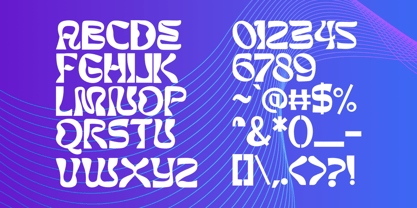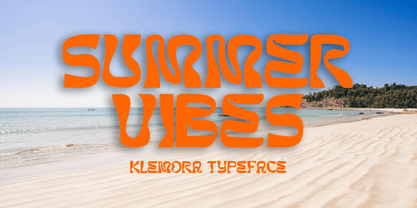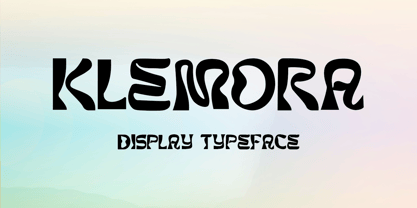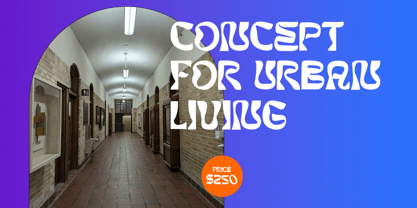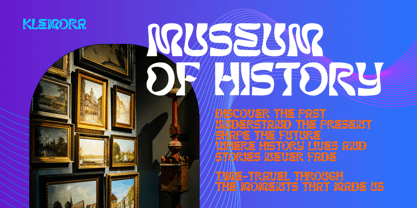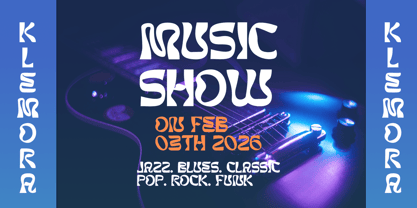
Klemora
by Fontysia
The Klemora Font Family was designed by Rizal Aiyub and published by Fontysia. Klemora contains 1 styles. More about this family
Introducing Klemora!! KLEMORA is a bold, modern display font. It’s modern and classic with a unique and classy look. Perfect if you need a little fun in your projects. Perfect for editorial projects, logo designs, web fonts, clothing brands, product packaging, magazine headers, or simply as a stylish text overlay on any background image.